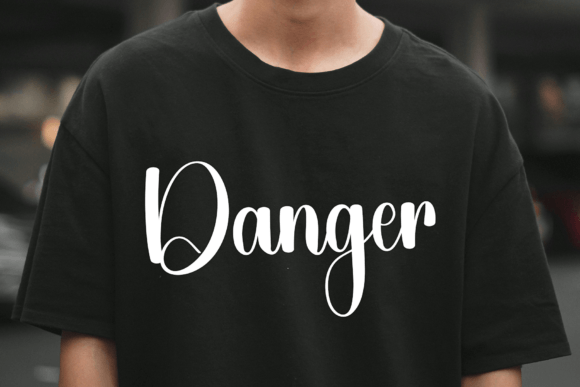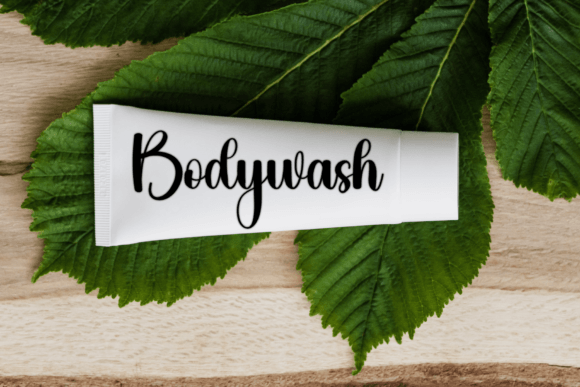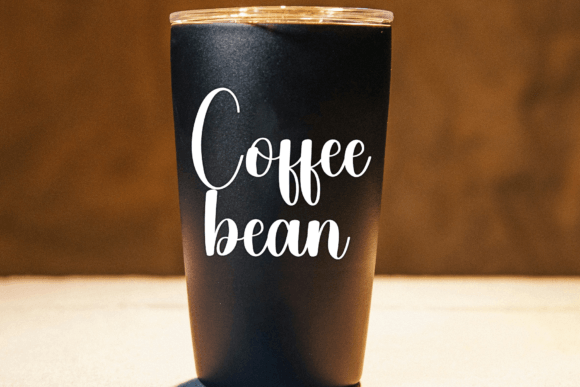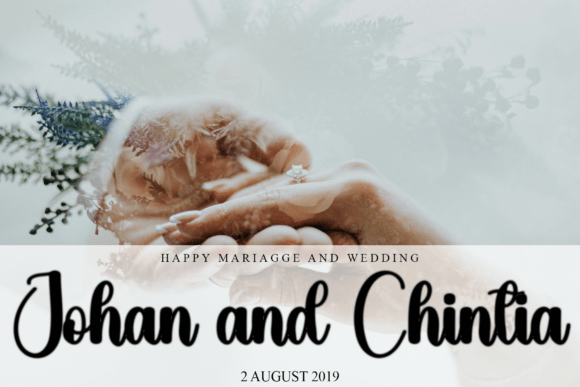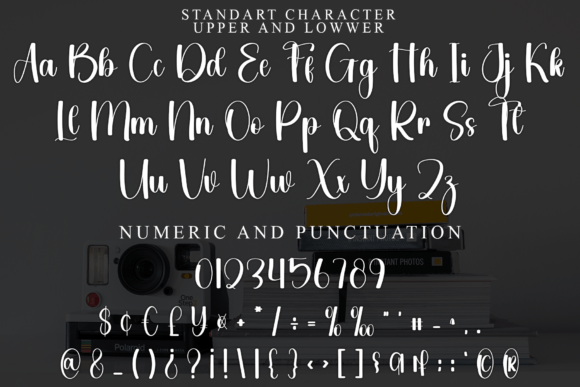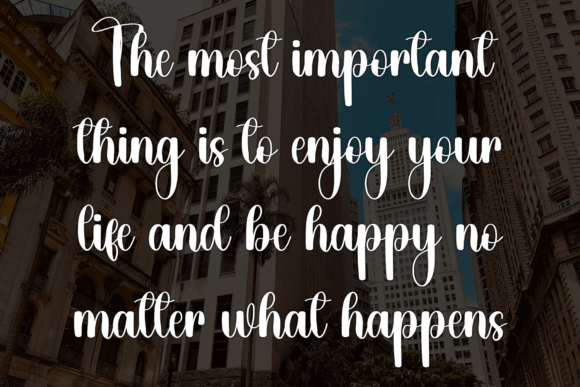
Introducing Finally Font: Elevate Your Designs with Elegance and Sophistication
In the world of typography, a font can make or break a design. It’s the perfect blend of style, elegance, and readability that can elevate a project from ordinary to extraordinary. If you’re a designer, crafter, or simply someone who appreciates beautiful typography, you’re in luck. Finally Font is here to revolutionize your designs with its stunning, contemporary, and elegant appeal.
Inspired by Timeless Classic Calligraphy
Finally Font draws inspiration from the classic calligraphy of the past, reimagined with a modern twist. This beautiful font boasts a sophisticated and refined aesthetic that’s sure to add a touch of luxury to any project. With its impeccable form and balanced design, Finally Font is the perfect choice for those seeking to create stunning visual content.
Key Features of Finally Font
- PUA Encoded: Finally Font is PUA (Private Use Area) encoded, which means you can easily access all the amazing glyphs and ligatures. This feature allows you to unlock the full potential of the font and add an extra layer of creativity to your designs.
- Balanced and Varied: The font’s design is carefully crafted to provide a perfect balance of elegance and readability. With a range of glyphs and ligatures at your disposal, you can create unique and visually appealing text arrangements.
- Contemporary Atmosphere: Finally Font boasts a modern and fresh feel, making it ideal for designers who want to create contemporary and stylish designs.
- Elegant and Refined: The font’s classic calligraphy inspiration shines through in its elegant and refined aesthetic, perfect for projects that require a touch of sophistication.
Finally Font is an excellent choice for designers and crafters looking to elevate their projects with beautiful typography. Whether you’re working on:
- Digital and print advertisements
- Web and mobile applications
- Stationery and packaging designs
- Craft projects, such as card making and scrapbooking
Finally Font is the perfect companion to help you create stunning visual content that stands out from the crowd.
Benefits of Using Finally Font
By incorporating Finally Font into your designs, you can:
- Enhance the aesthetic appeal of your projects
- Convey a sense of elegance and sophistication
- Establish a strong brand identity
- Increase readability and engagement
- Stand out in a crowded design landscape
Finally Font is a game-changer for designers and crafters seeking to elevate their projects with beautiful, elegant, and sophisticated typography. With its PUA encoding, balanced design, and classic calligraphy inspiration, this font is sure to become a staple in your design arsenal. Unlock the full potential of Finally Font and take your designs to the next level.